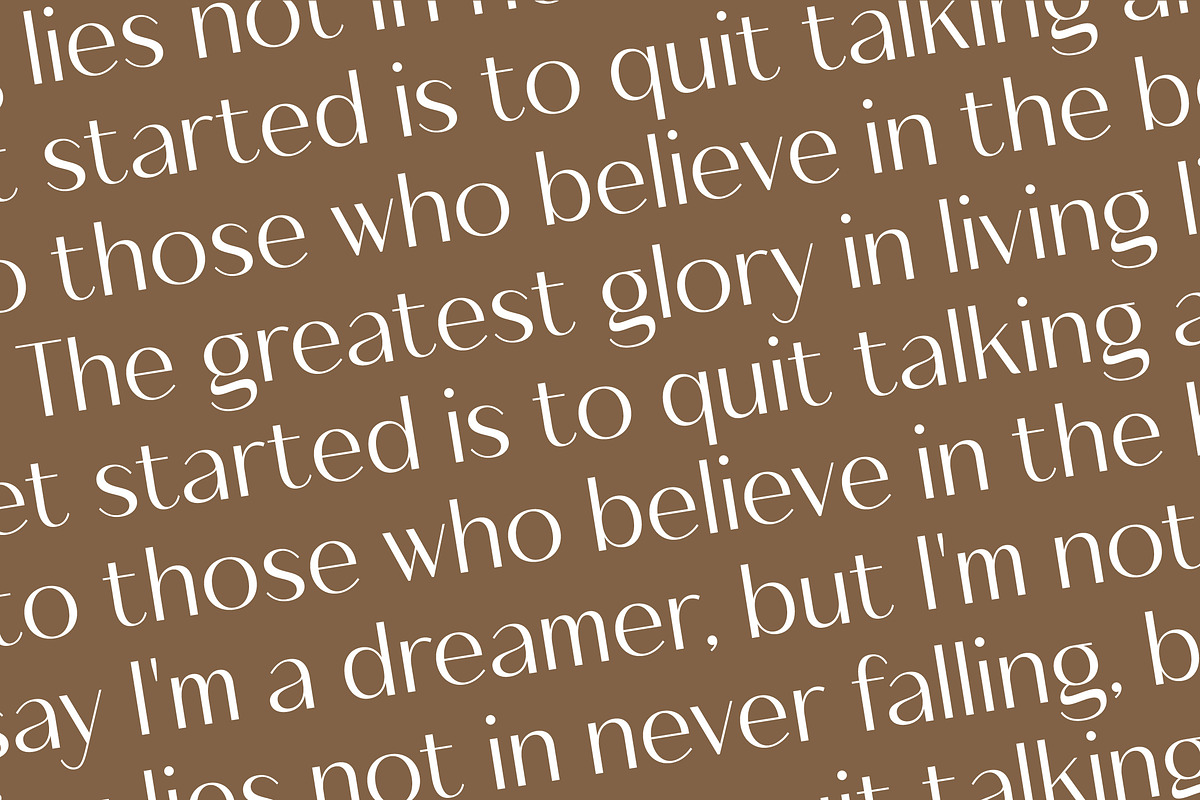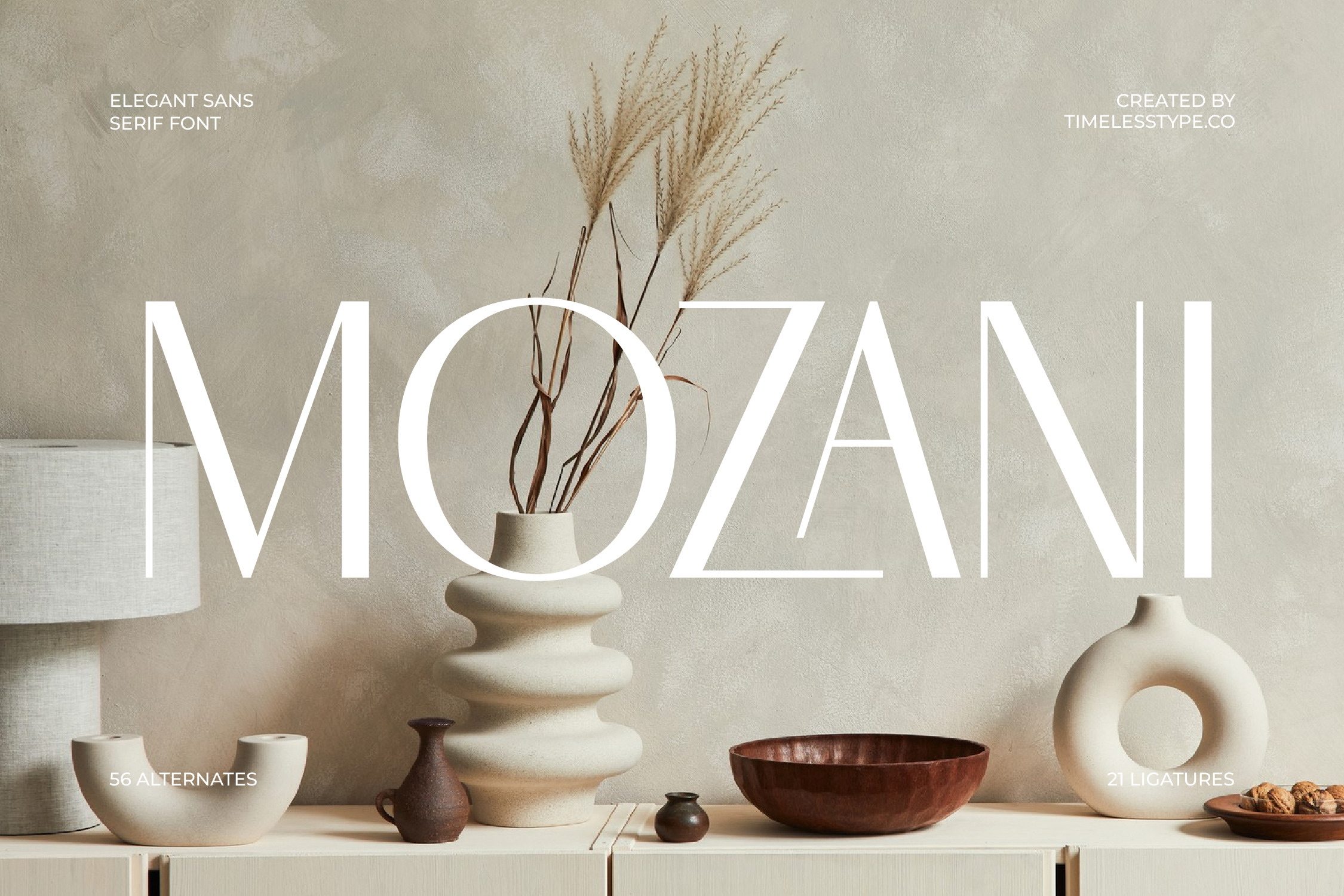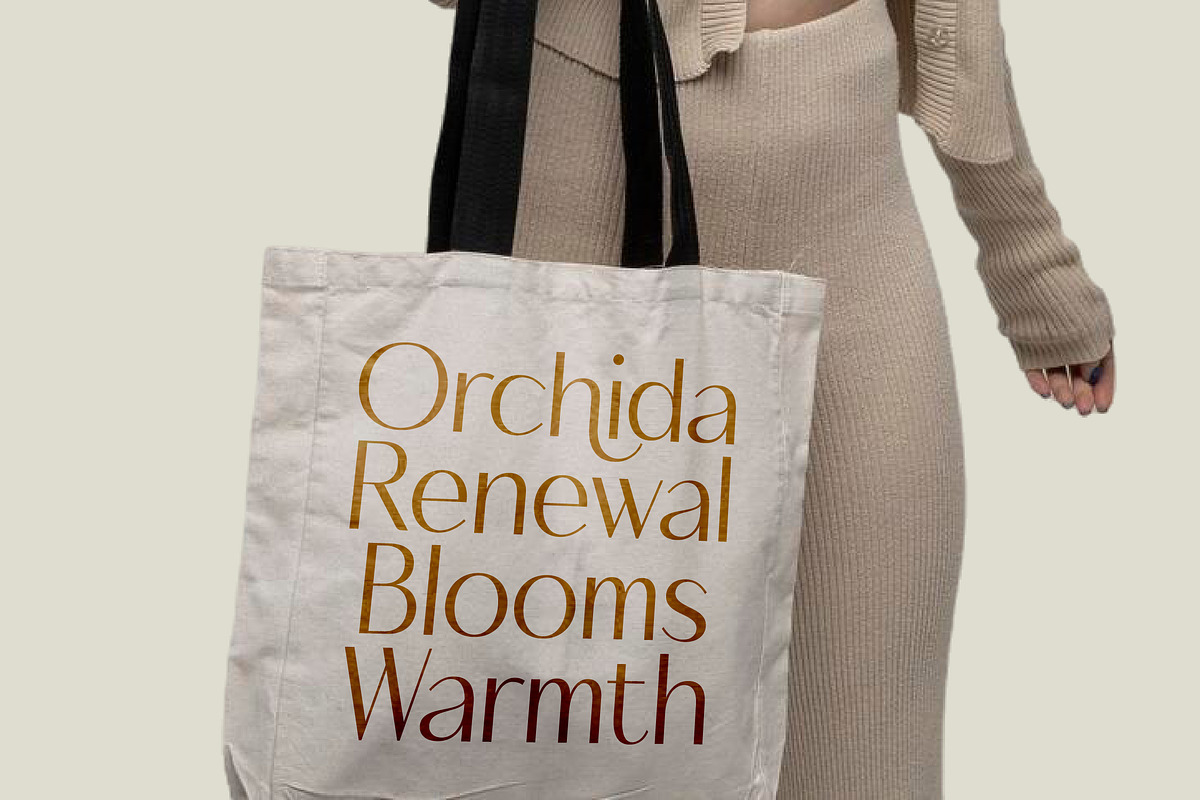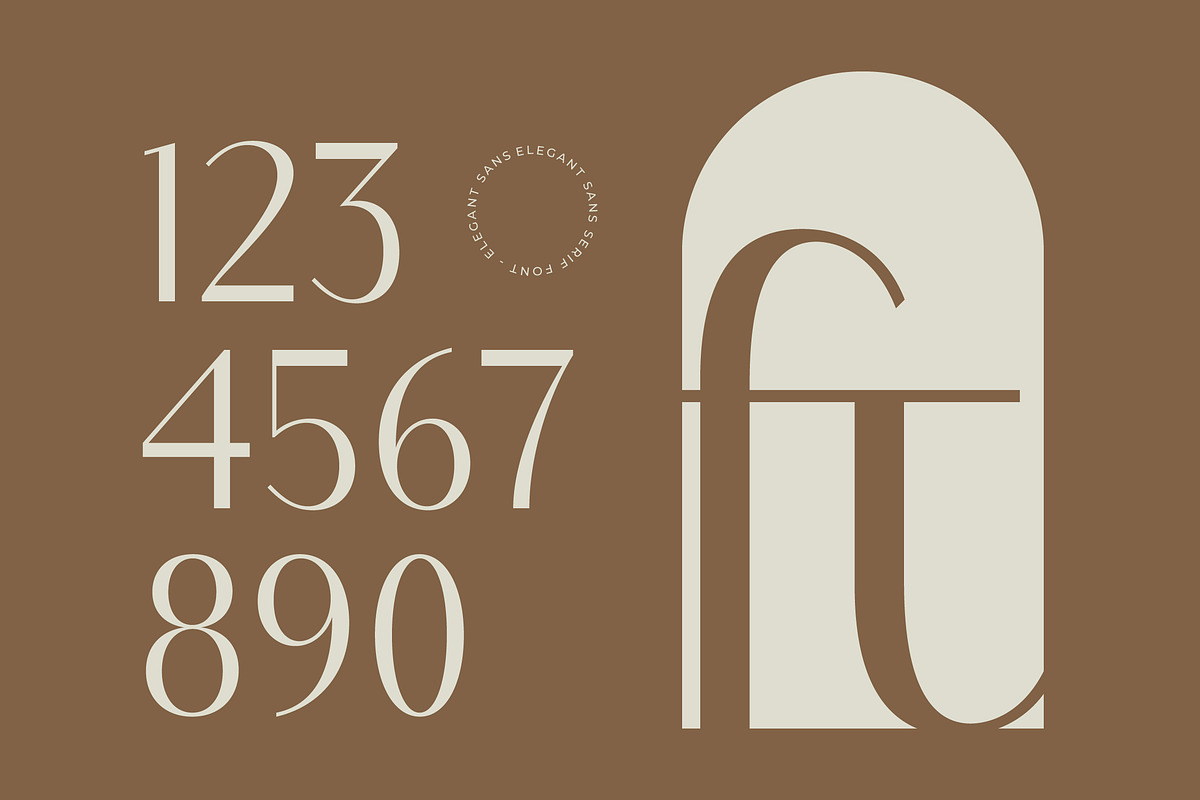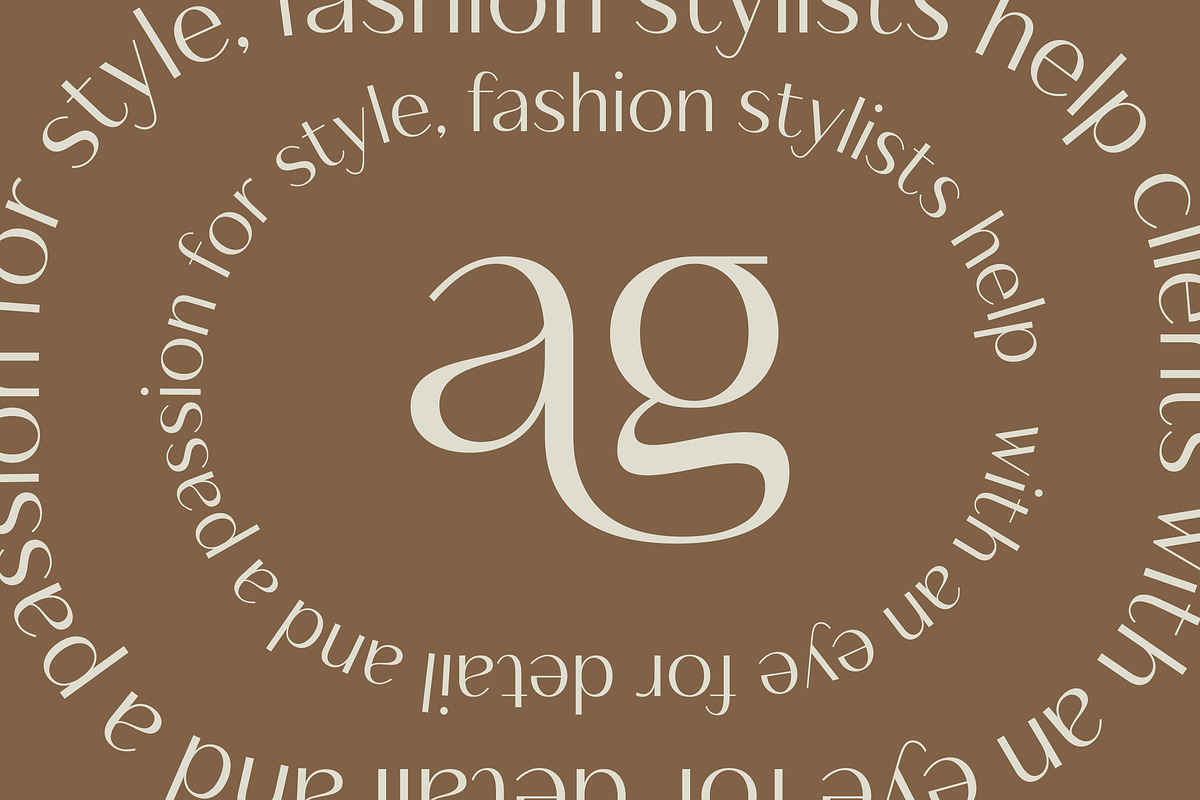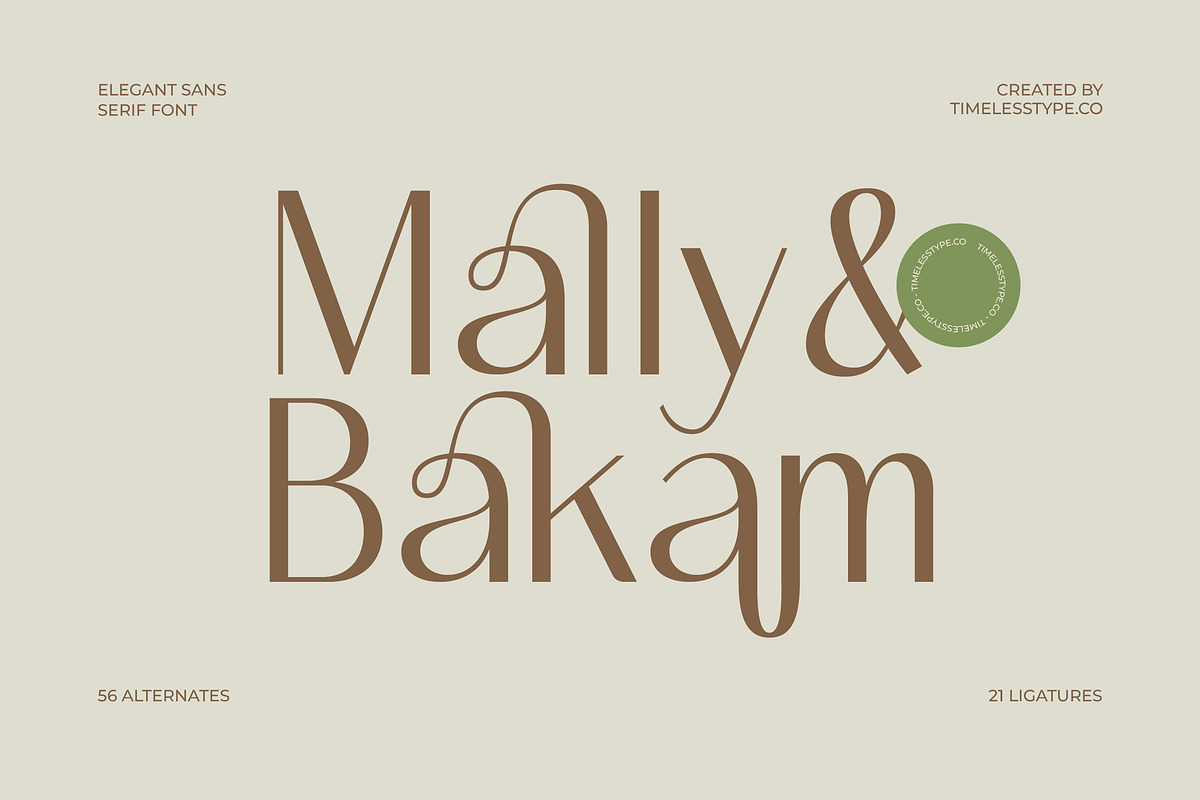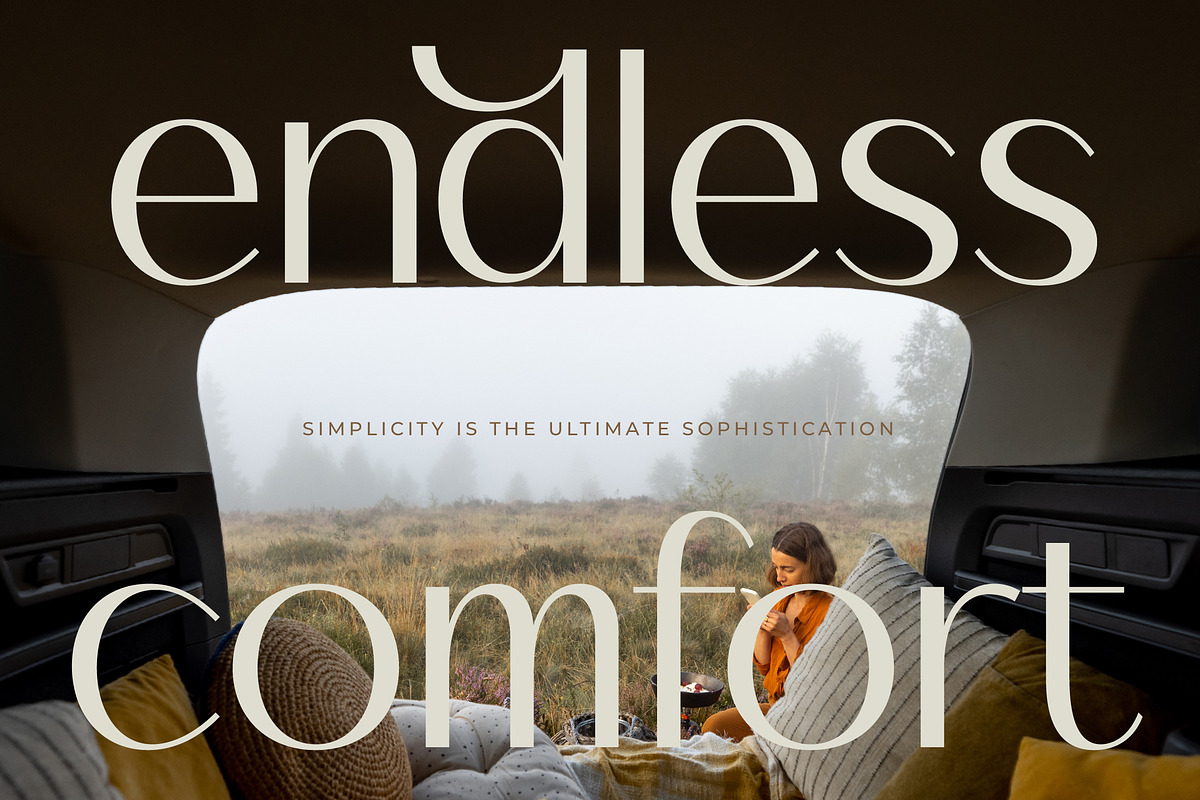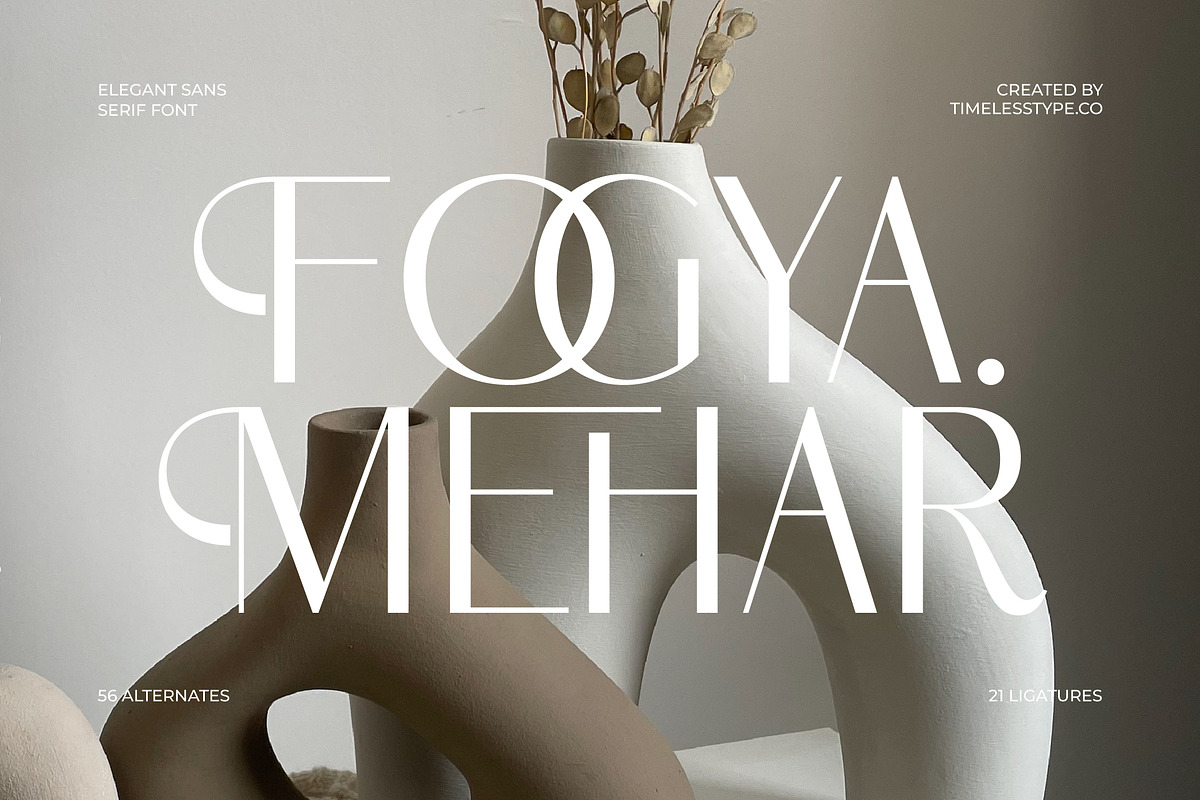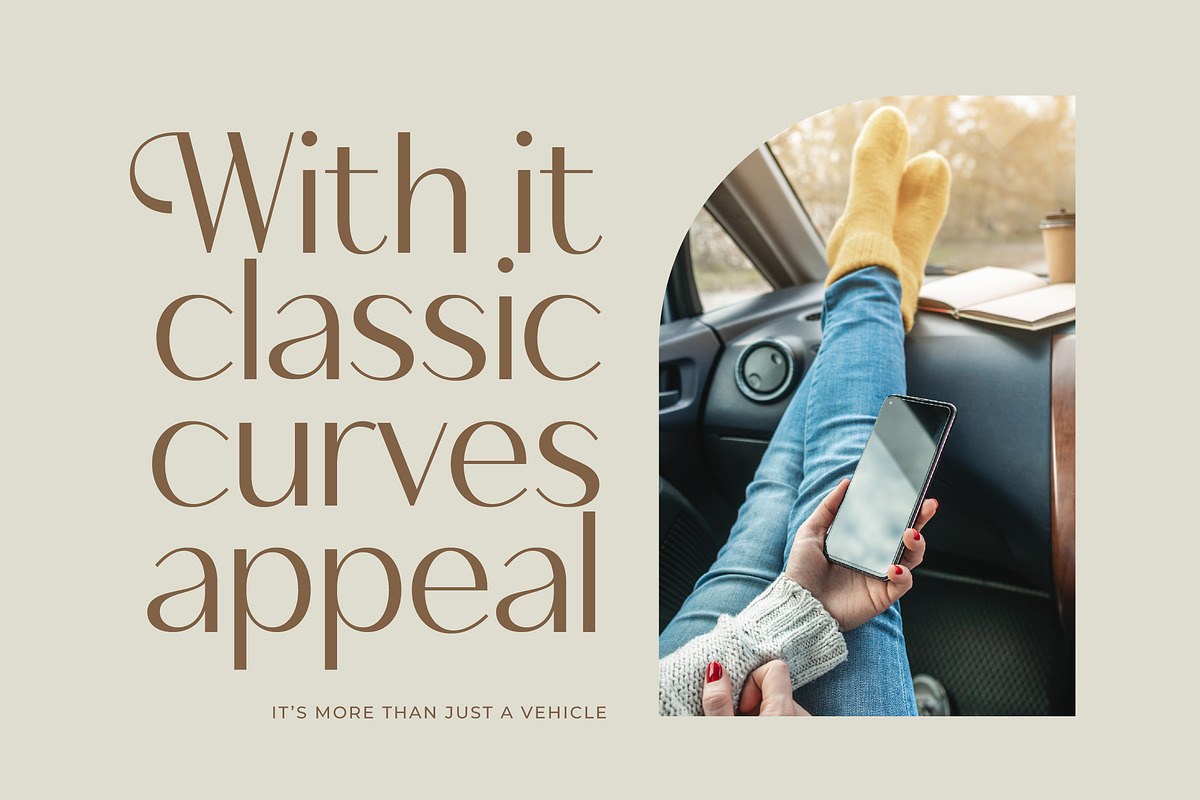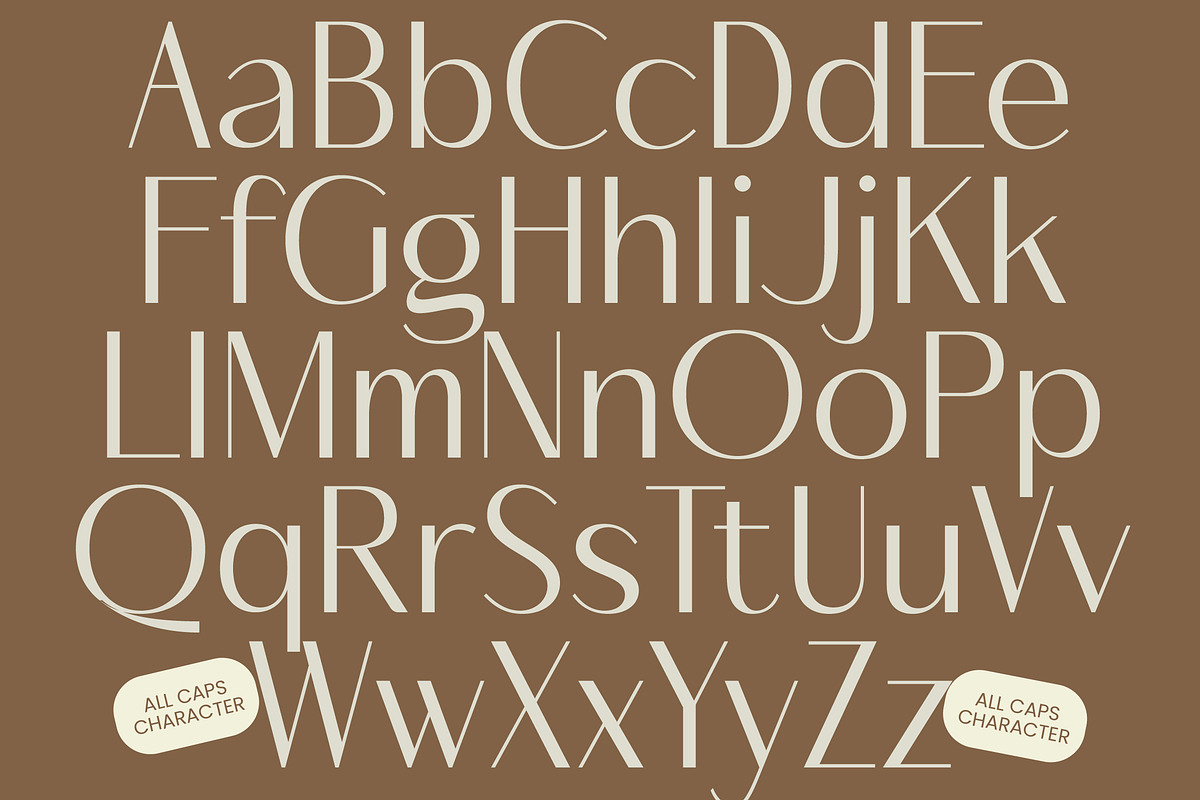
Mozani Elegant Sans Serif Font
Discover the breathtaking sophistication of Mozani, a typeface designed to elevate your creative vision with its unparalleled grace and contemporary silhouette. This font captures the essence of refined minimalism, making every character a statement of pure aesthetic excellence.
Inspired by the organic textures of handcrafted pottery and the serene atmosphere of a high-end gallery, Mozani was born from a desire to blend architectural precision with natural fluidity. Its tall, slender forms evoke a sense of timelessness that feels both grounded and ethereal in any composition.
This modern serif display alternative offers a unique take on luxury typography, delivering a high-contrast serif feel in a sleek, sans-serif format that maximizes branding impact. It is the ultimate editorial font for designers who demand a balance between bold visibility and delicate detail.
Perfectly aligned with the current modern serif trend, this typeface brings a fresh perspective to editorial display fonts by focusing on character-driven typography. It responds to the growing market demand for typefaces that can transition seamlessly between digital screens and tactile high-end print media.
Whether you are crafting a unique logo design or establishing a cohesive branding identity, Mozani excels across editorial layouts and luxury packaging. Its versatile nature makes it an exquisite choice for wedding invitations and high-street fashion lookbooks that require an upscale touch.
The package includes a generous selection of 21 ligatures and 56 alternates that allow for deep customization, including elegant swashes for a bespoke look. Fully equipped with multilingual support and international characters, this font ensures your message resonates globally without compromising on style.